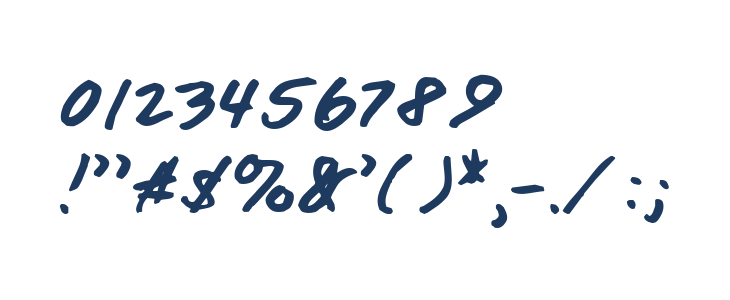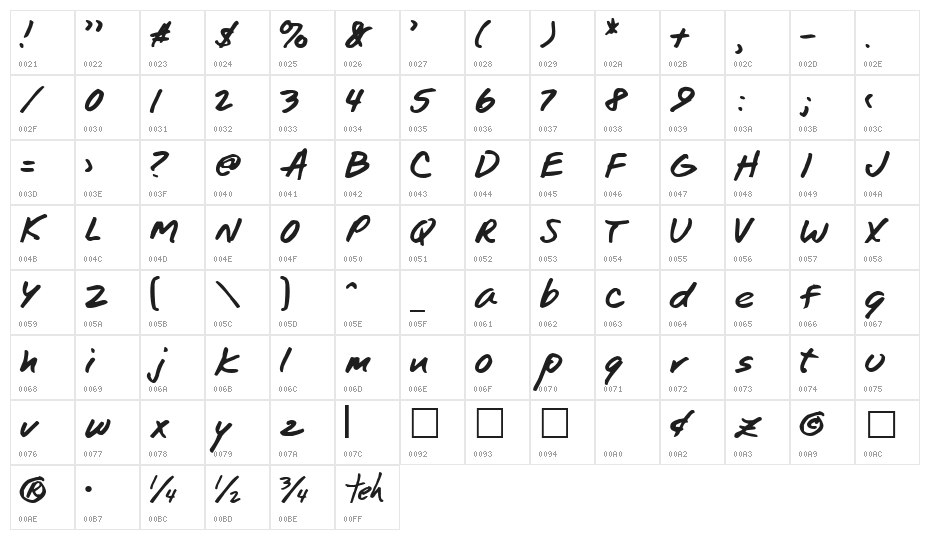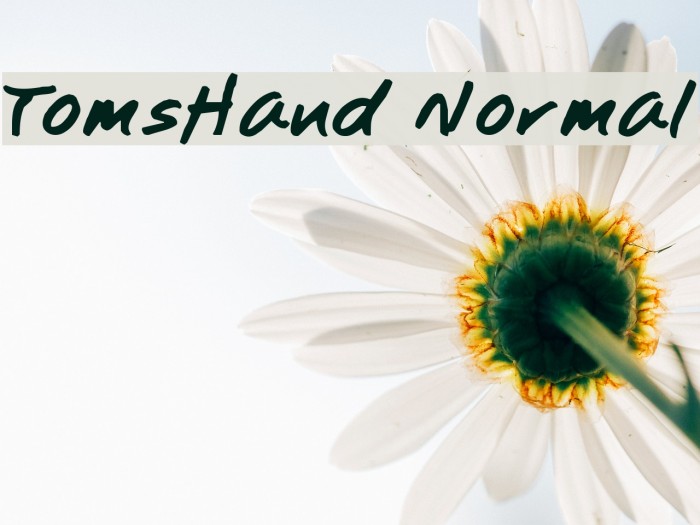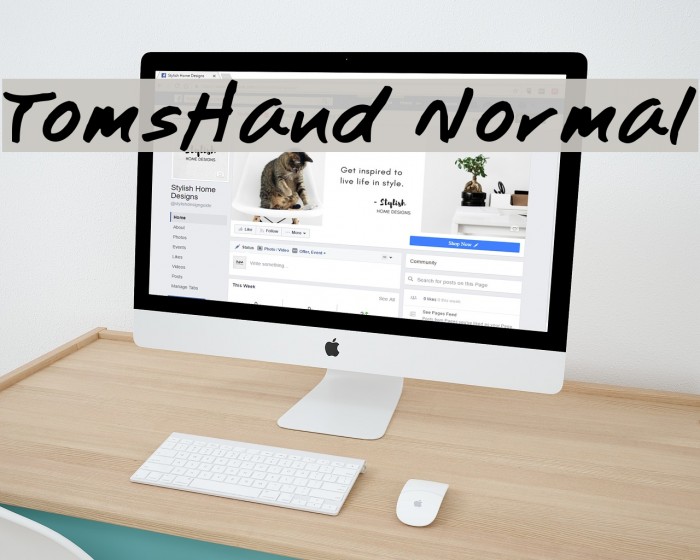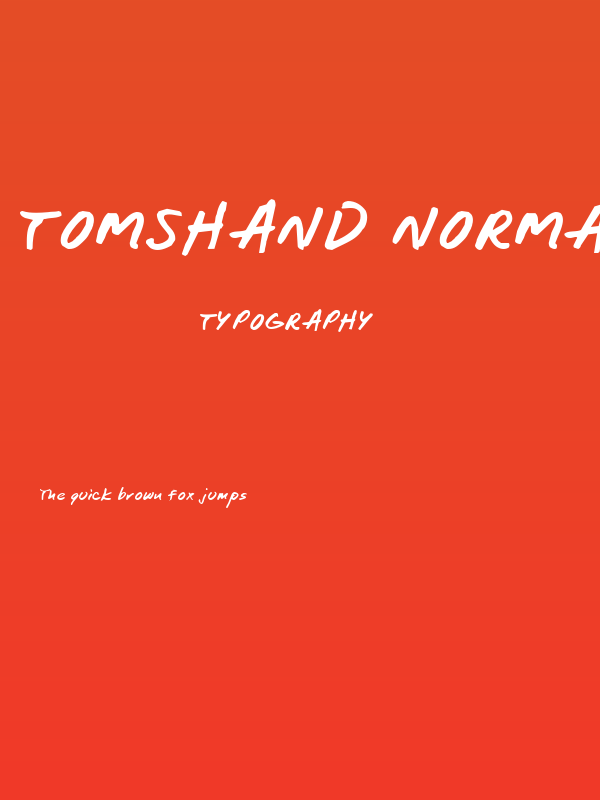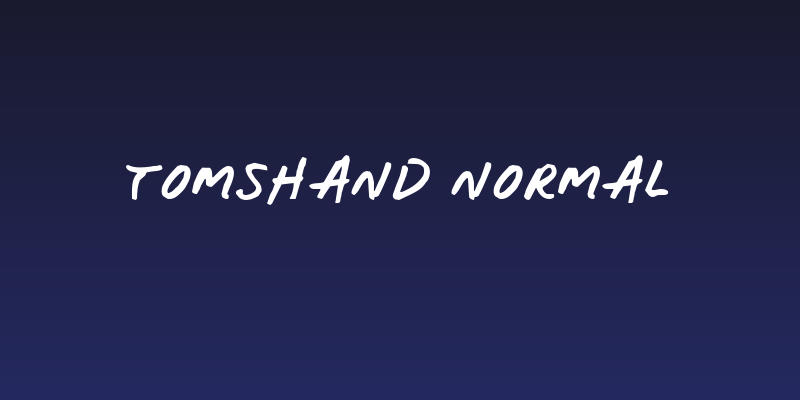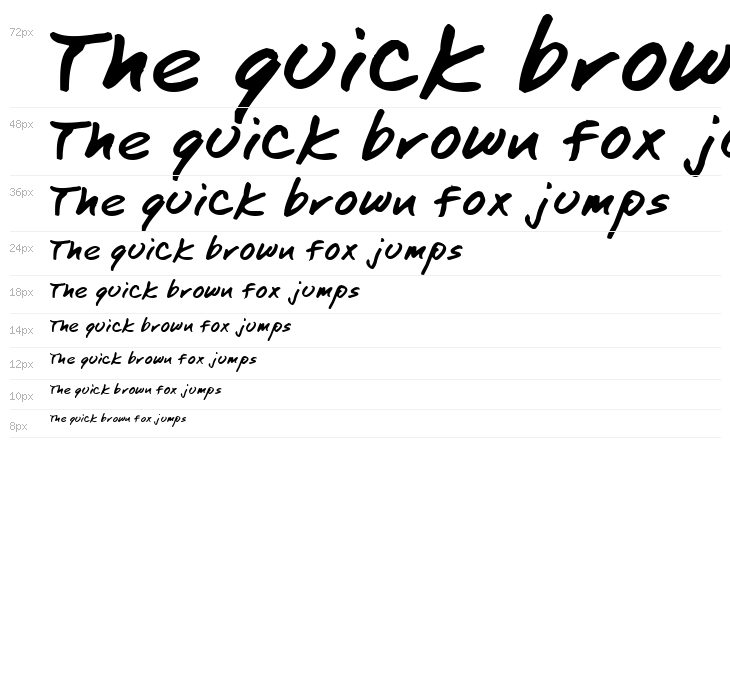
TomsHand Normal Font
TomsHand Normal Description
This font exudes a casual and personal touch, reminiscent of natural handwriting. The letters are slightly slanted, giving it a dynamic and informal feel. The strokes are bold and consistent, with a medium contrast that adds to its legibility. The characters are well-spaced, maintaining a balance between readability and style. The overall appearance is friendly and approachable, making it suitable for projects that require a personal or creative flair.
| Proposed Projects | Ideal for greeting cards, personal blogs, creative posters, and informal branding projects. |